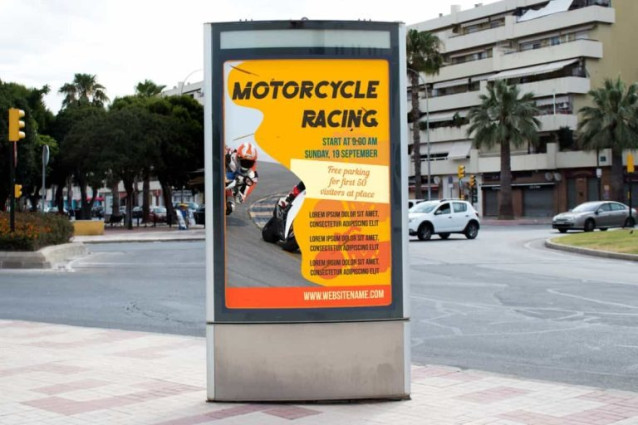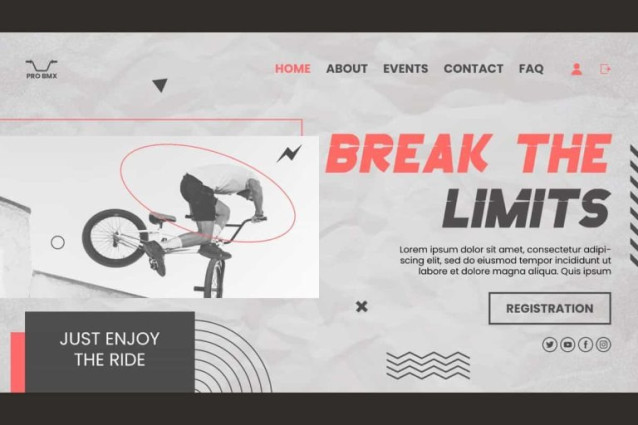
Breaking Marker Font
Breaking Marker Font is a textured racing themed font by NoahType. This font has a distinctive feature in the strokes on each character which makes it look cool. This font will be suitable for a lot of projects, such as custom design, stationery, label, poster, signage, catalog, cover, quotes, website, and more!
Breaking Marker Font includes full set of Uppercase and Lowercase Basic Characters, Numerals and Punctuation. This font has an attractive appearance that will make you believe it is the perfect choice for many industries, such as sports, racing, game, automotive, advertisement, café, event organizer, fashion, printing, publishing, etc.